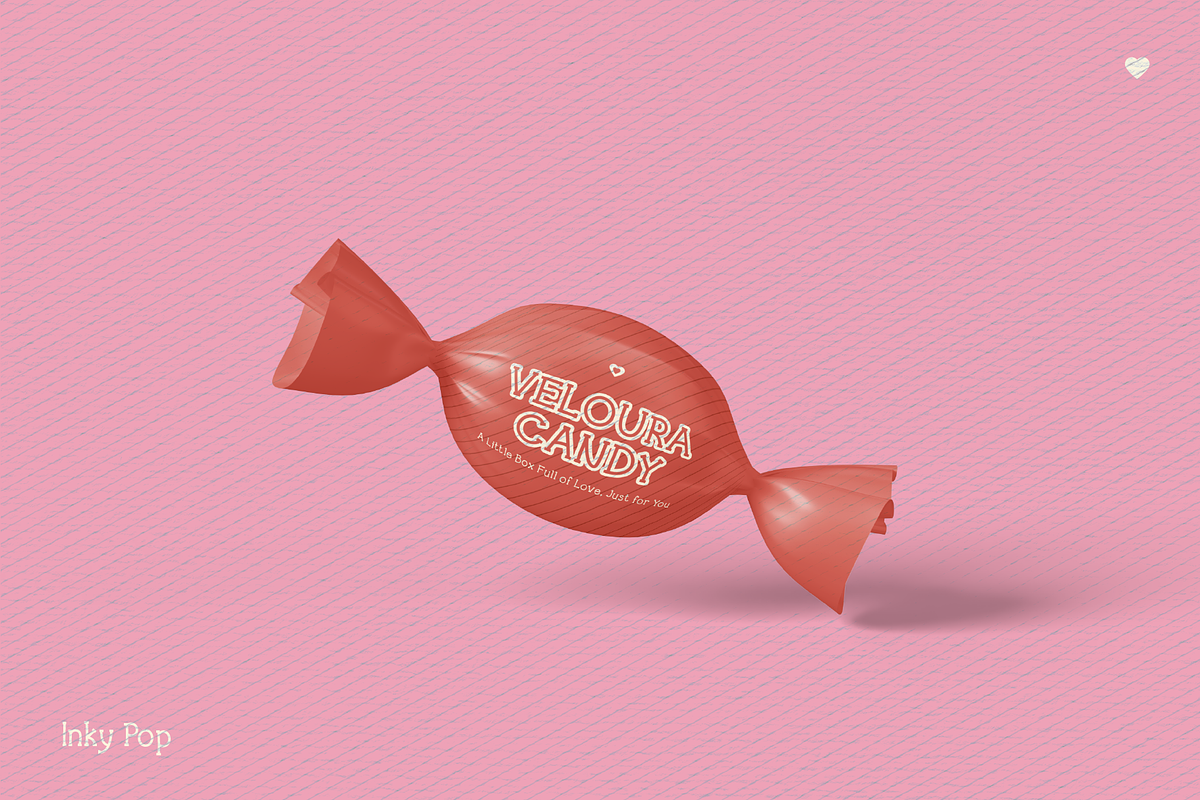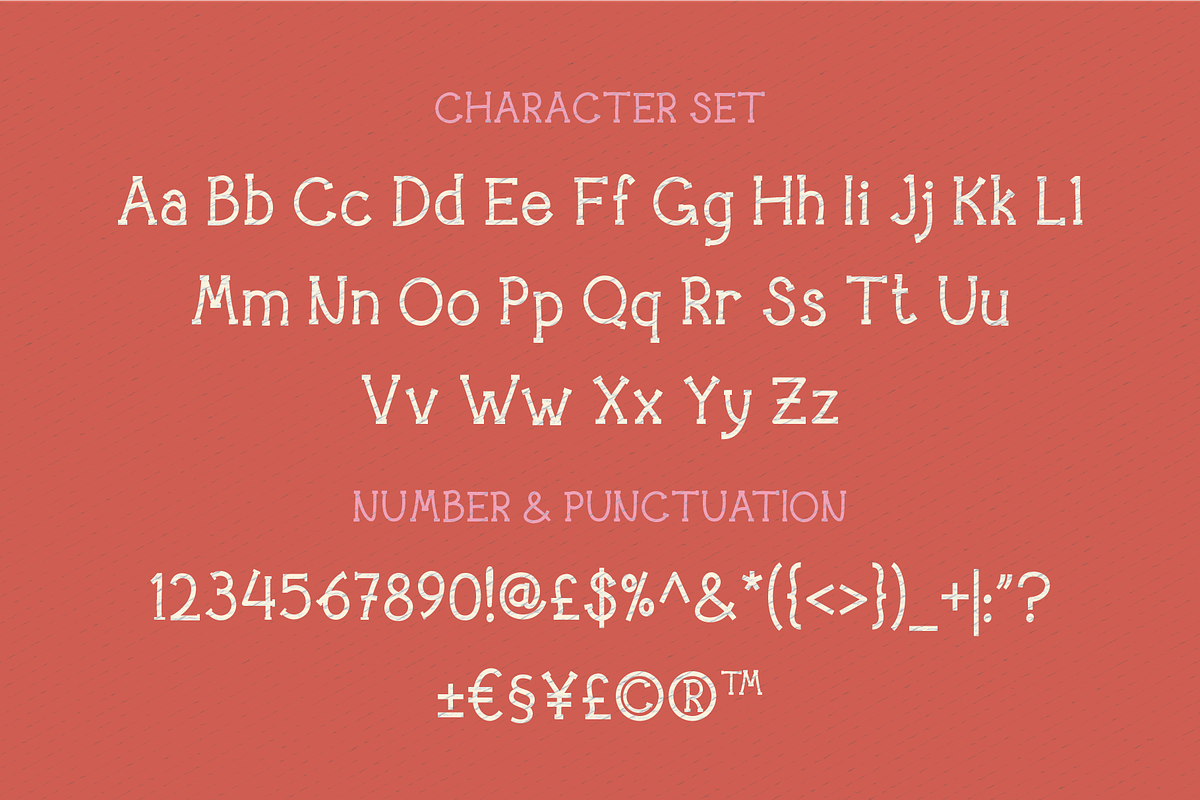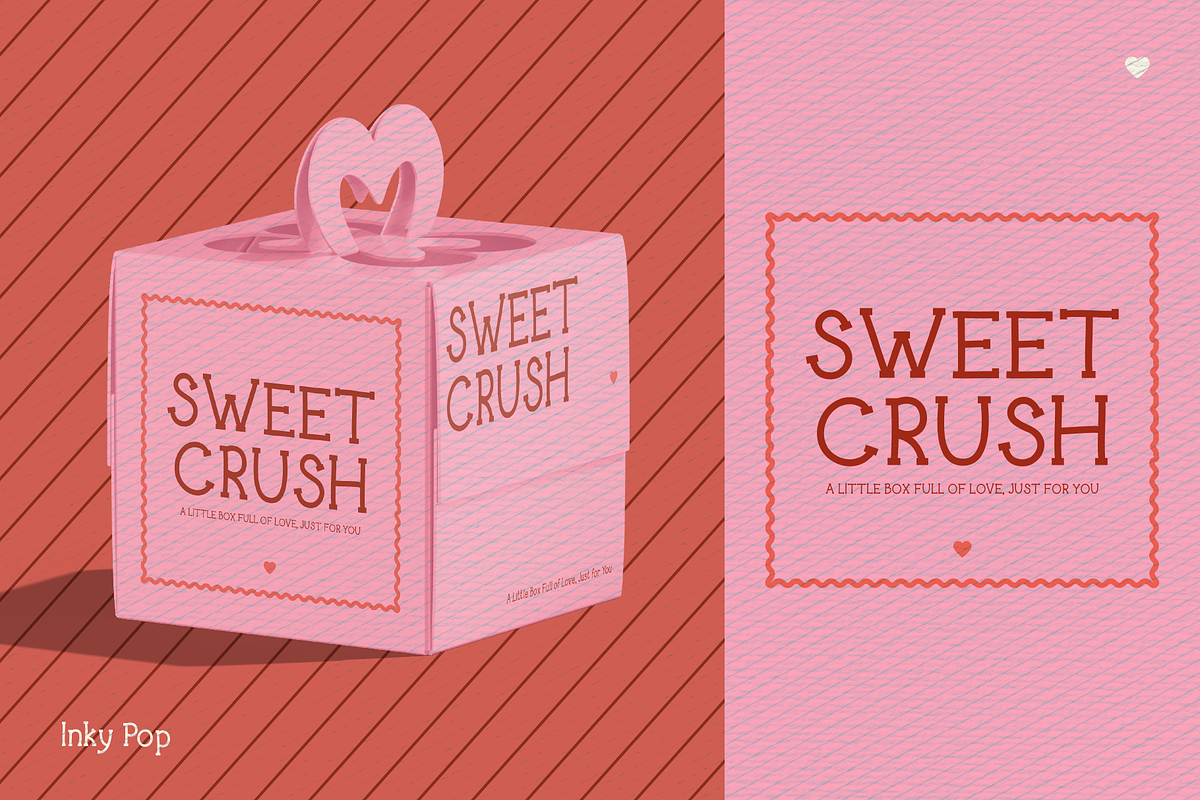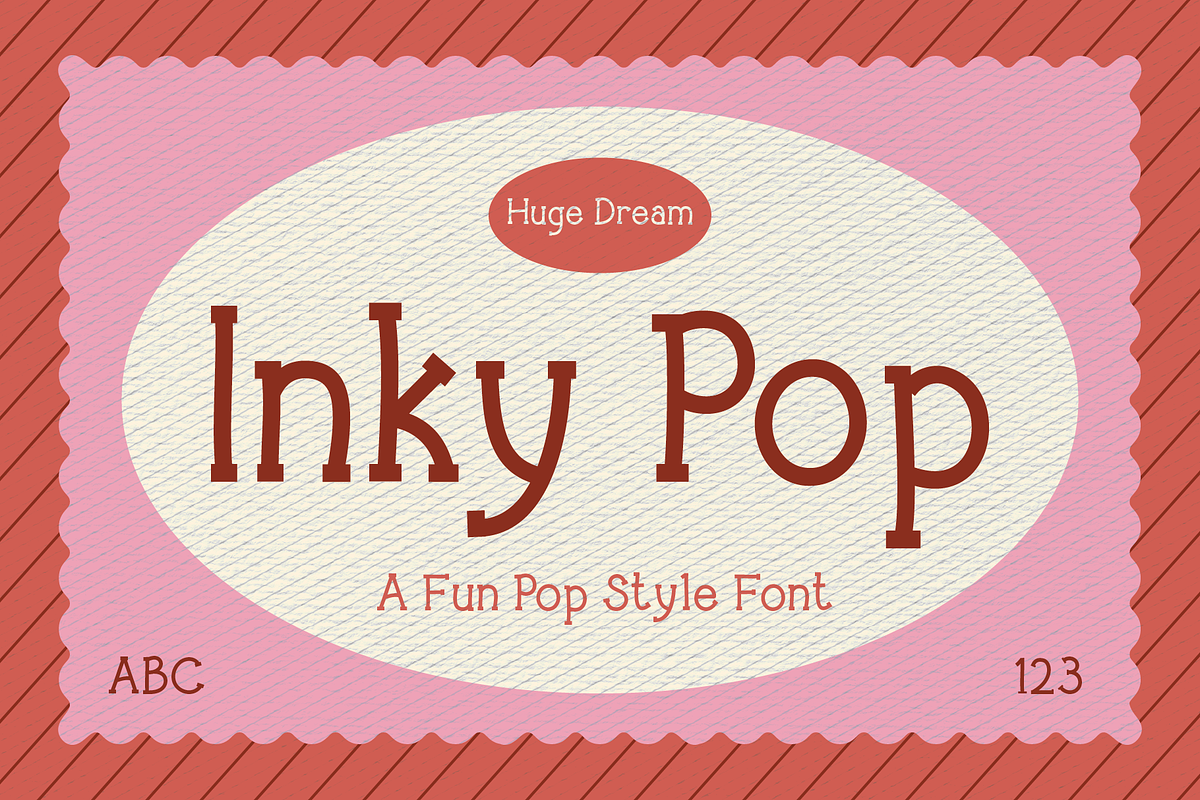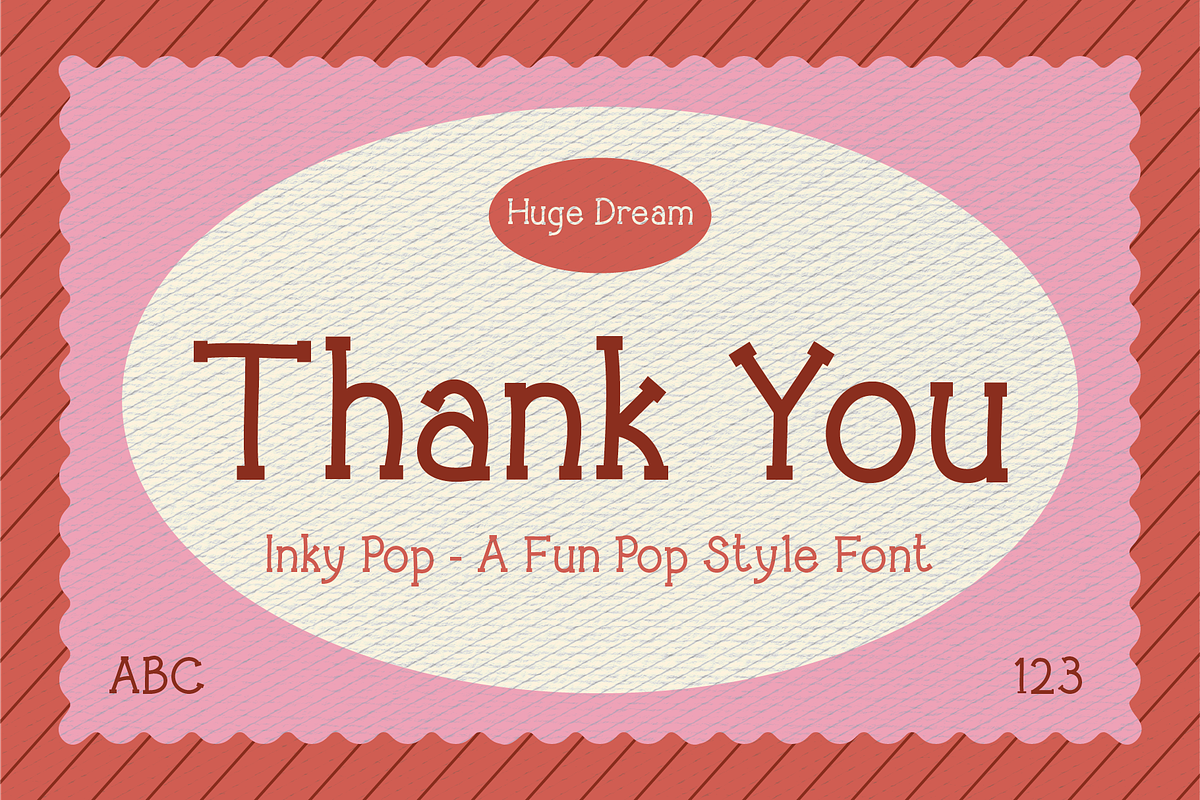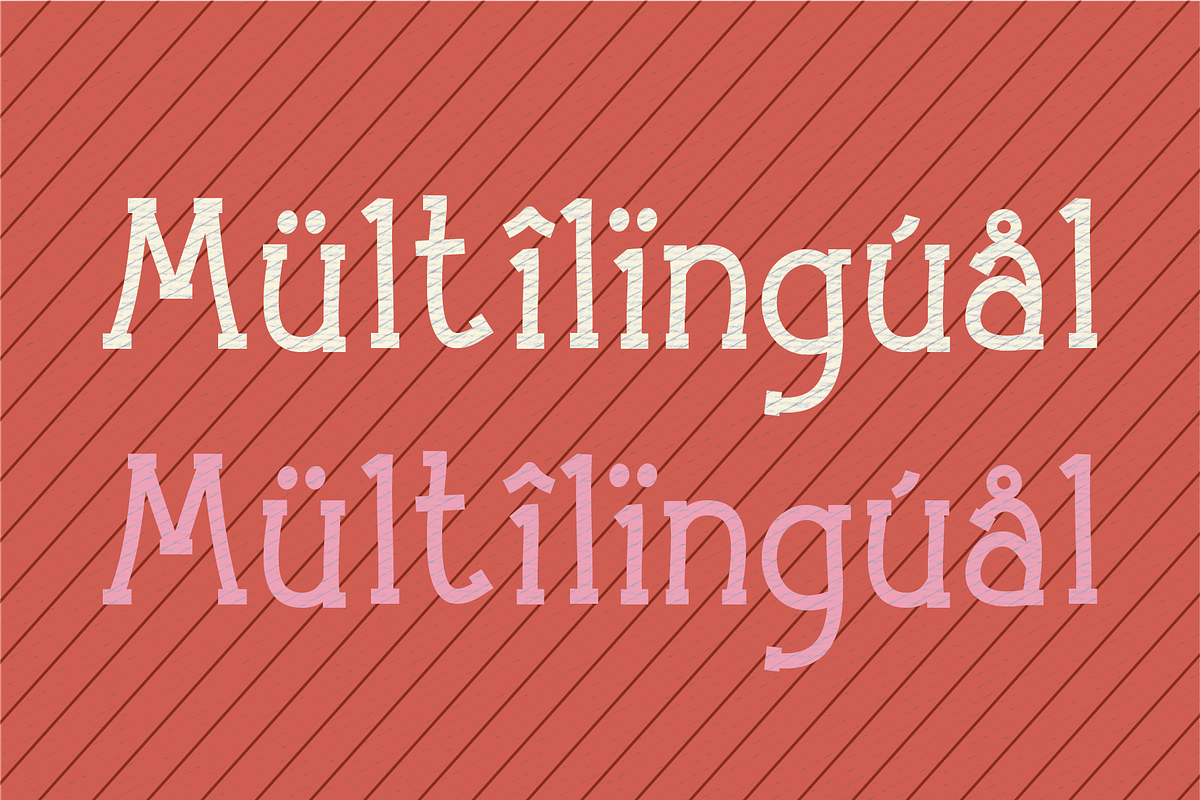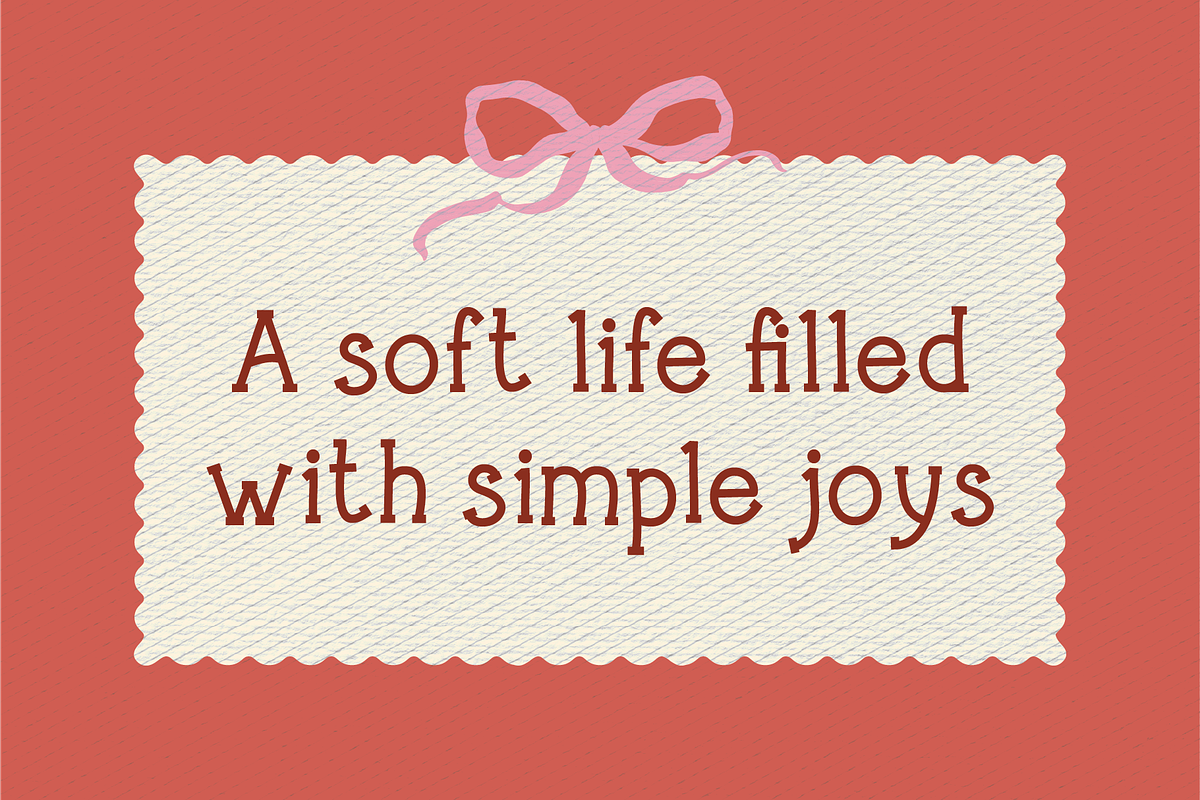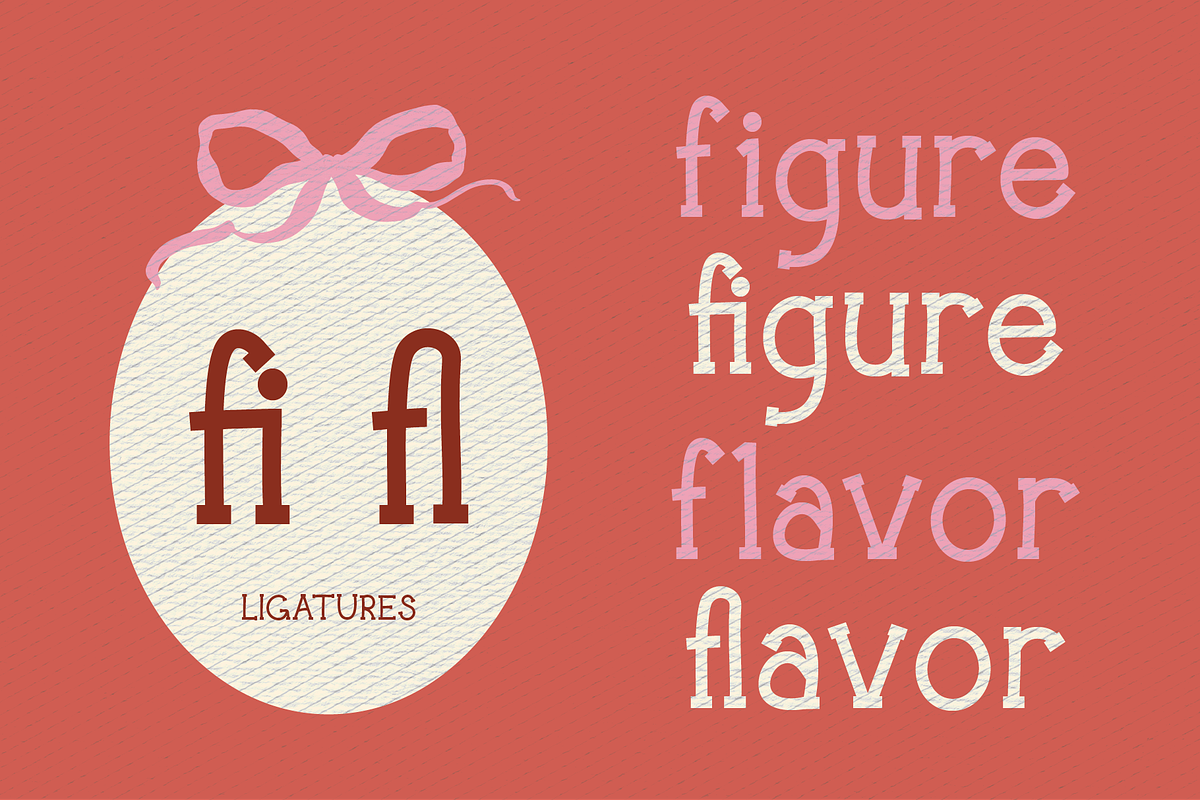
Inky Pop – Fun Pop Style Font
Inky Pop is a playful and energetic Pop Fun Font that brings a burst of personality to every design. With its unique Serif Doodle Font style, this typeface blends quirky hand-drawn details with bold, pop-inspired shapes—perfect for creating eye-catching visuals that feel both fun and expressive.
Designed to stand out, Inky Pop works beautifully for kids-themed projects, branding, packaging, posters, social media graphics, and anything that needs a cheerful Pop, Fun vibe. Each letter carries a lively character, making your text feel dynamic, friendly, and full of life.
Add a splash of creativity to your work with Inky Pop, a font made to pop, play, and impress.
Inky Pop – Fun Pop Style Font features:
Punctuation & Numbers
Elevate and explore the design possibilities with this Serif Doodle Font!